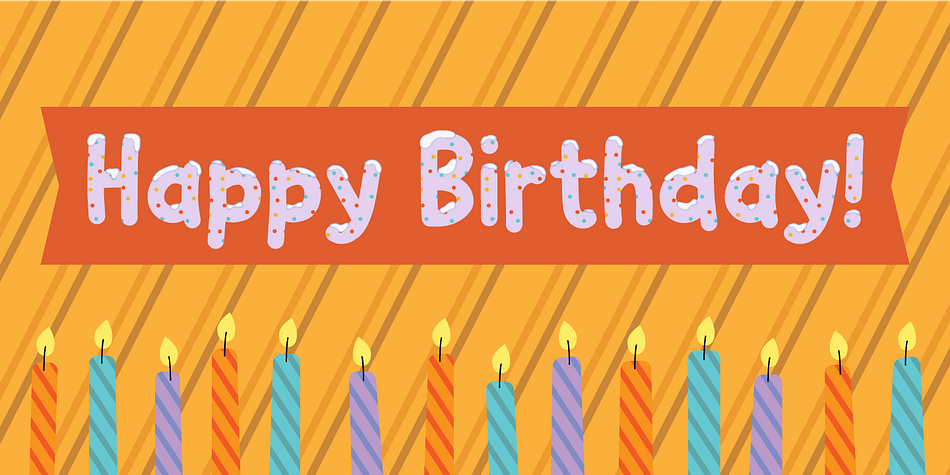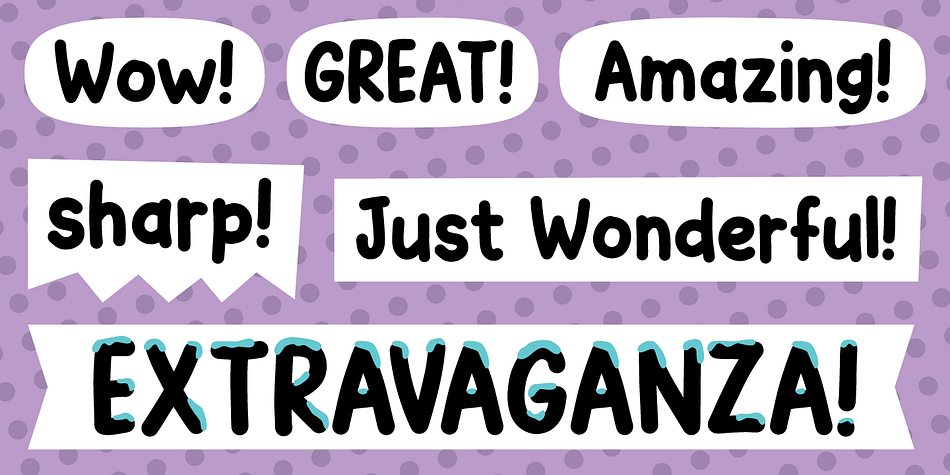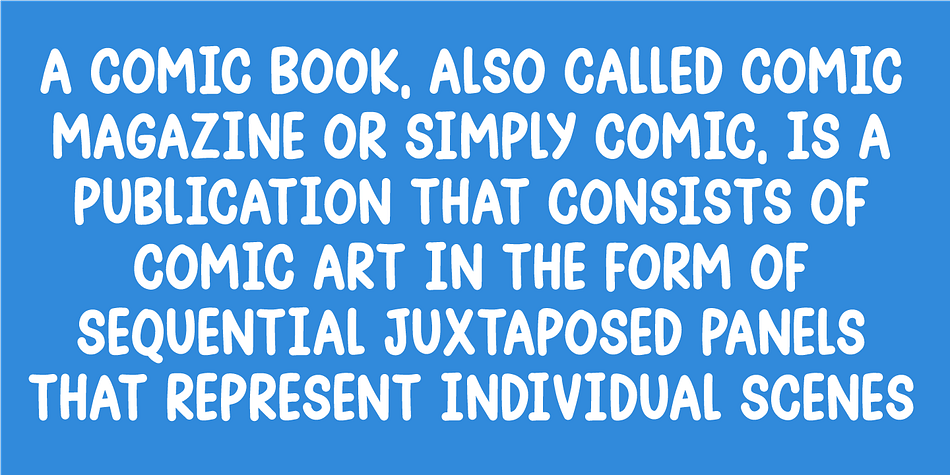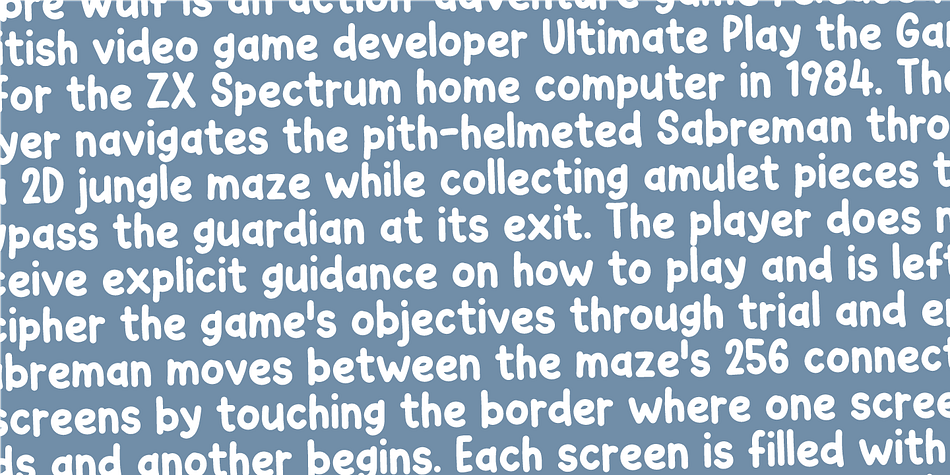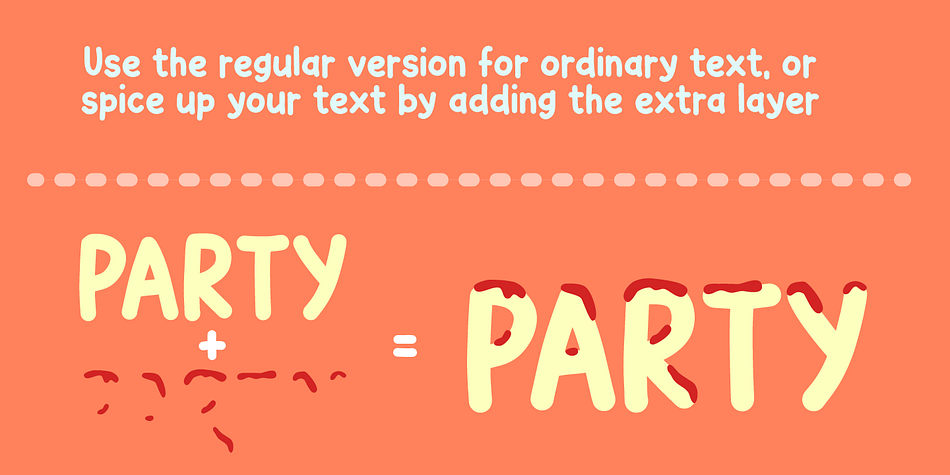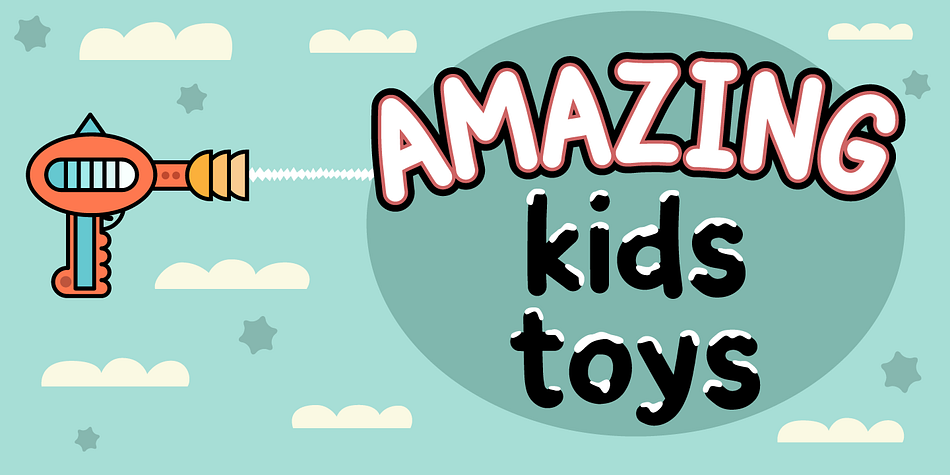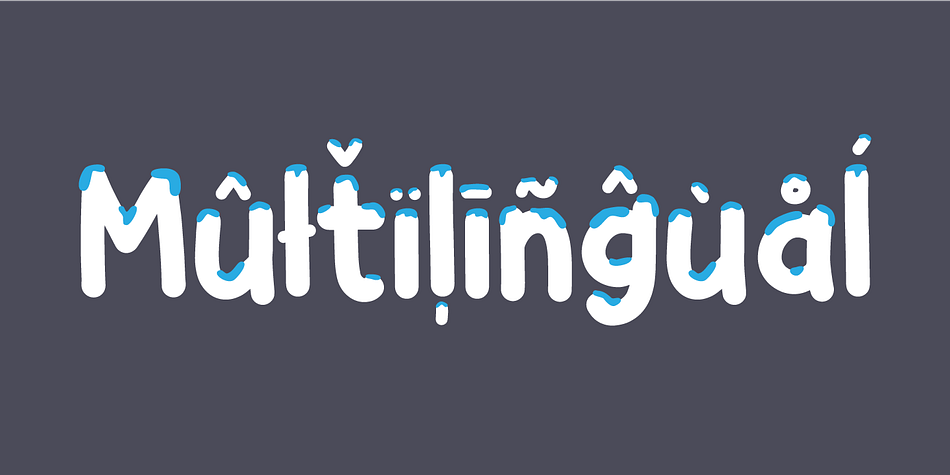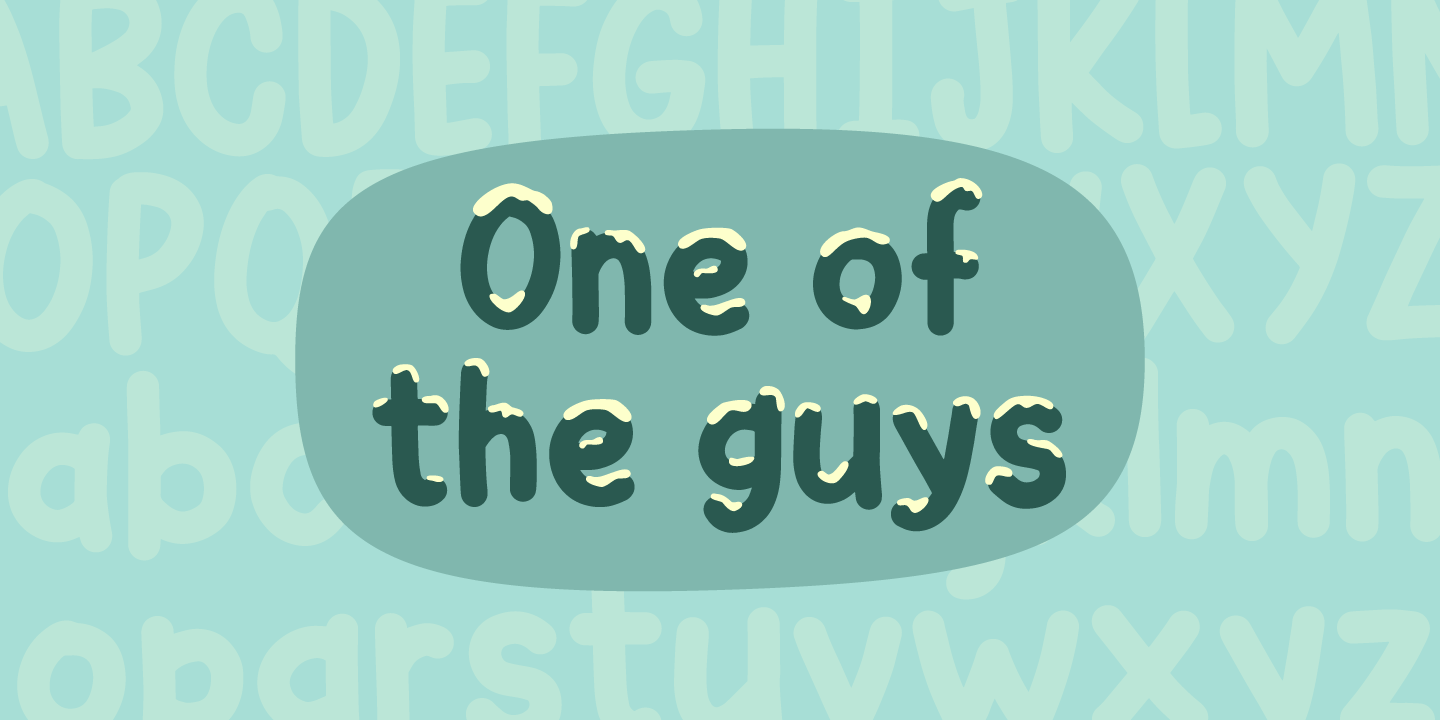
Designed by Jakob Fischer, One of the guys is a comic and hand drawn font family. This typeface has two styles and was published by Pizzadude.dk.
One of the guys is a simple, highly legible, mono lined comic book font. Simple, yes, but full of personality! Use it as it is, or spice up your text by using the extra layer. The extra layer could be ghouly slime, birthday cake cream, snow or whatever your imagination figures out!